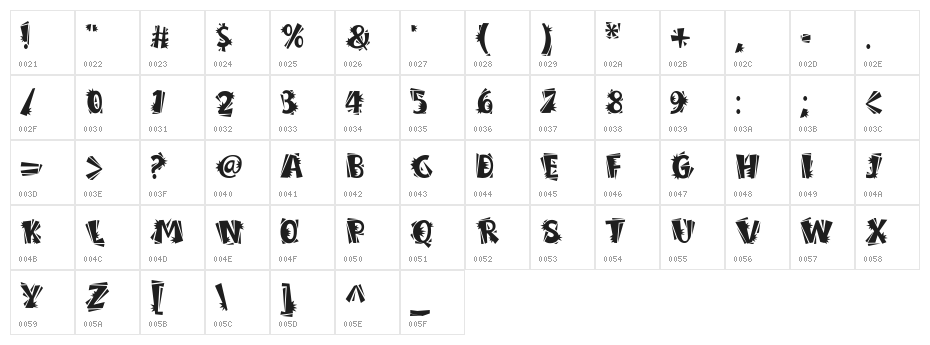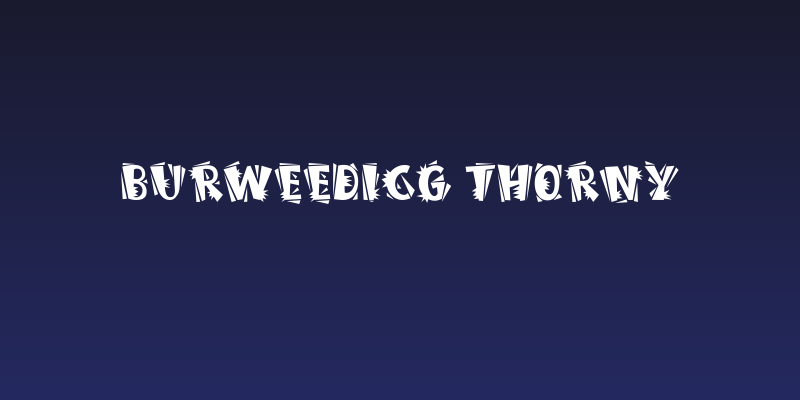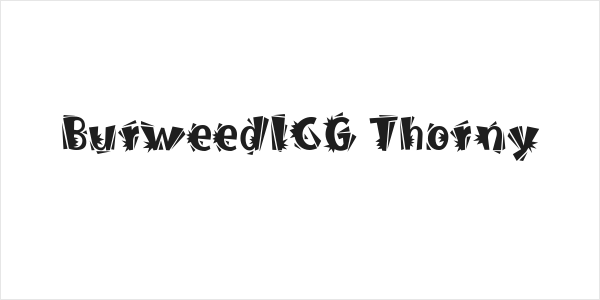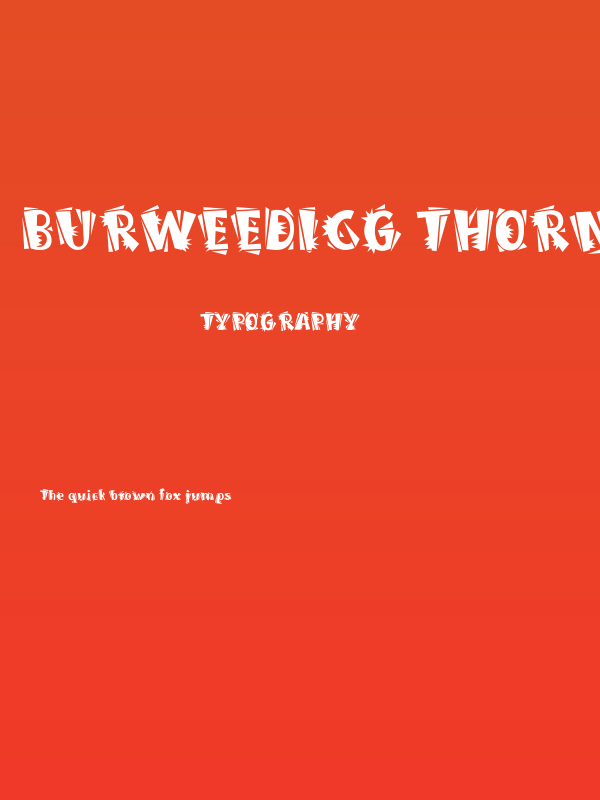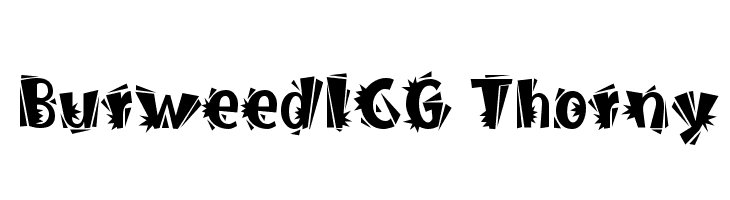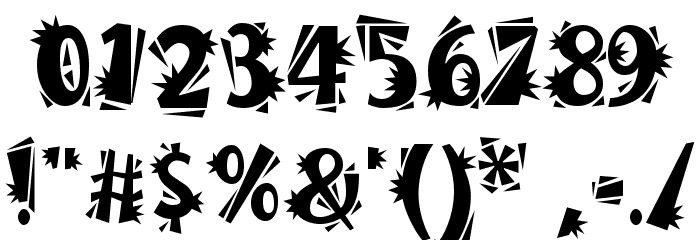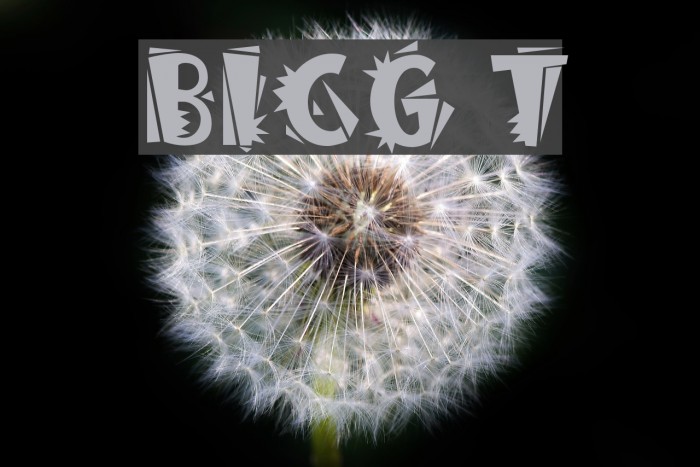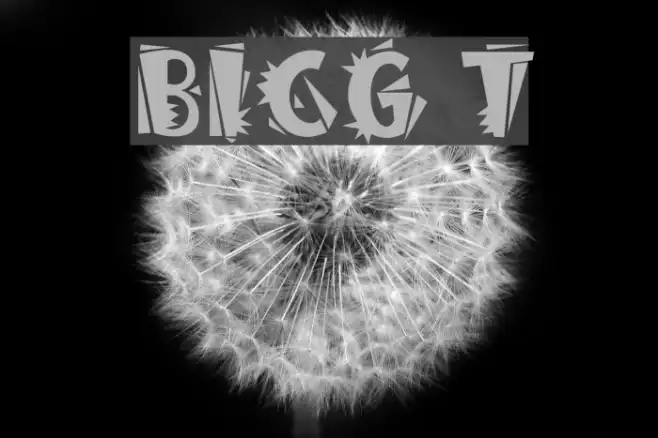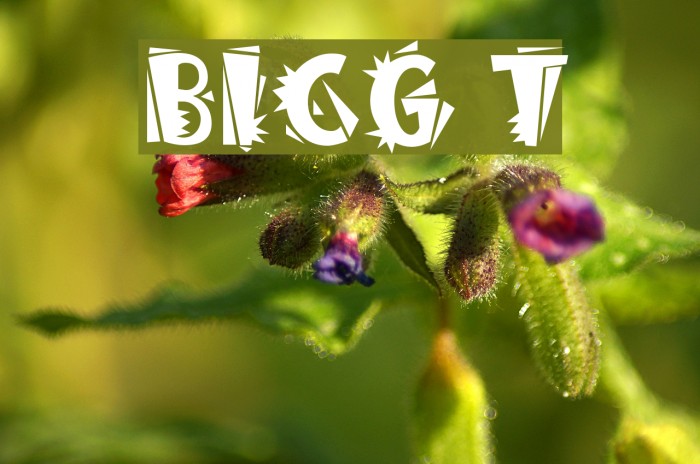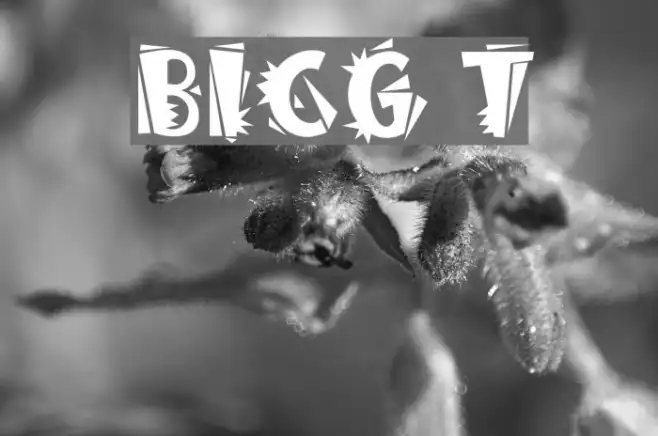
BurweedICG Thorny Font
BurweedICG Thorny Description
This font features a bold and edgy design with sharp, thorn-like protrusions extending from each character. The letters are thick and angular, creating a sense of movement and aggression. The uppercase and lowercase letters maintain a consistent style, with jagged edges and a dynamic appearance. Numbers and special characters follow the same aesthetic, making the font highly cohesive. The overall look is striking and unconventional, perfect for making a bold statement.
| Proposed Projects | Ideal for projects needing a bold, eye-catching design such as music album covers, event posters, or Halloween-themed graphics. |